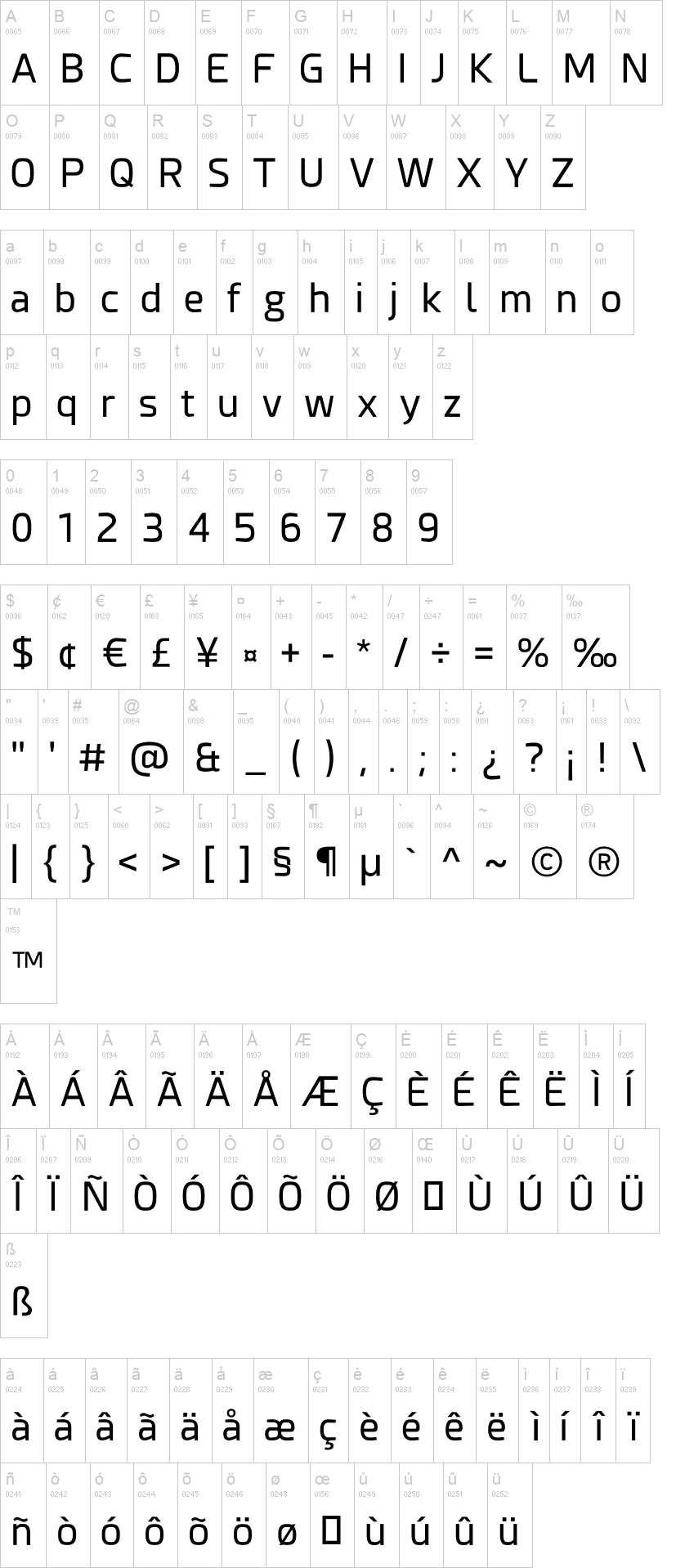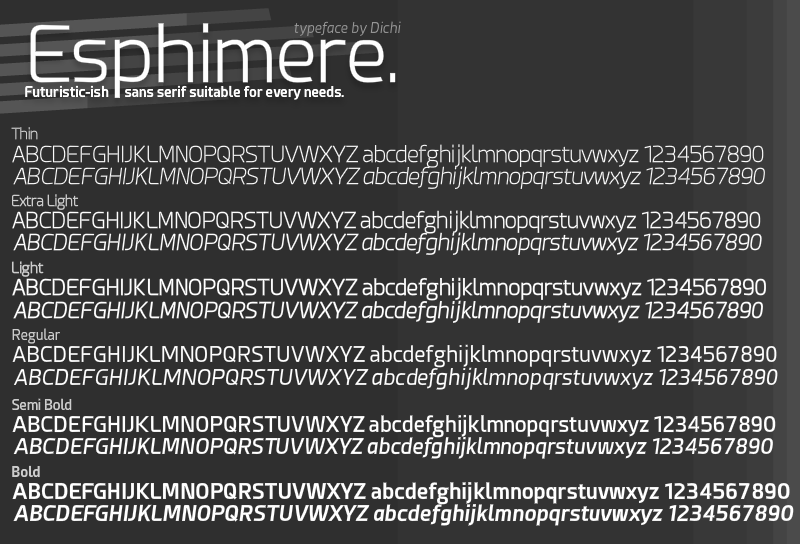
Esphimere Extra Light.otfEsphimere Light.otfEsphimere.otfEsphimere Semi Bold.otfEsphimere Thin Italic.otfEsphimere Extra Light Italic.otfEsphimere Italic.otfEsphimere Semi Bold Italic.otfEsphimere Bold Italic.otfNote of the authorFont with futuristic-ish looks.